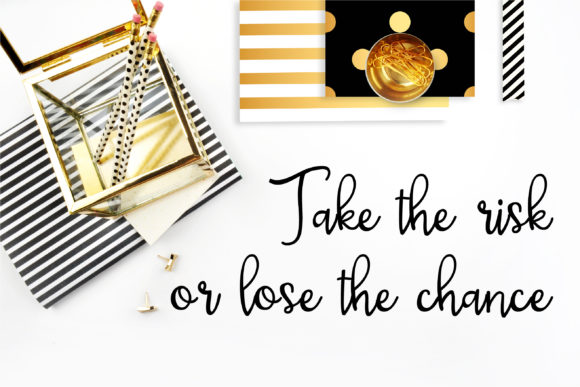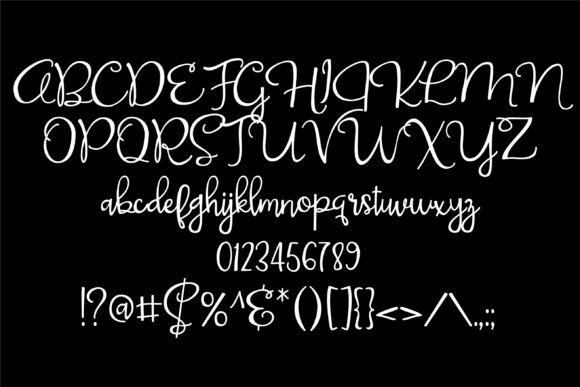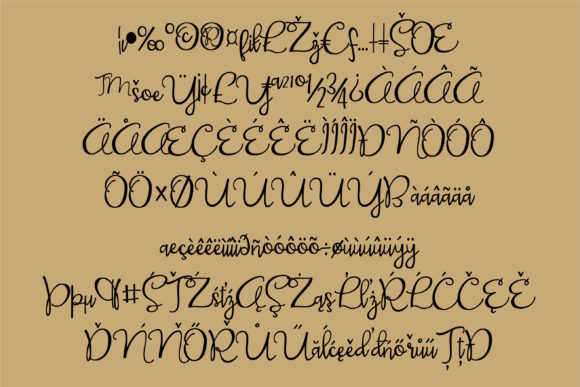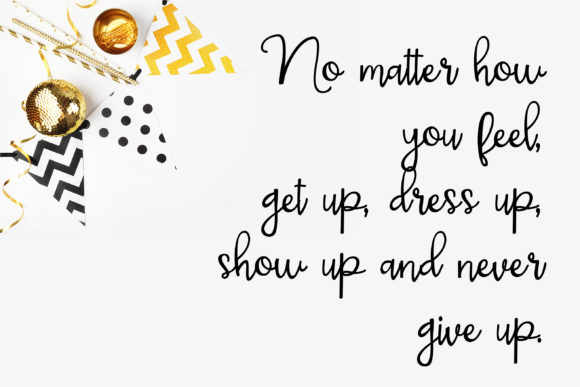
Unleashing Whimsy with the Bellingham Font
Have you ever been brainstorming a creative project and suddenly, the perfect font pops into your head? For many designers, this moment of inspiration is the spark that sets their imagination ablaze. For those who have experienced this euphoric moment, you’ll understand why discovering the Bellingham Font is a revelation. This pretty hand-written script is more than just a font – it’s a key to unlocking the essence of your brand’s personality.
Bellingham Font is a highly legible, hand-written script with large loops and a very upright casual-ness that makes it perfect for capturing the relaxed, friendly vibe of your brand. Whether you’re designing a logo, a brochure, or a website, Bellingham Font is an excellent choice for adding a touch of whimsy and sophistication to your design. For designers, it’s a valuable tool that can elevate their work and make it stand out in a crowded market.
- Unique Characteristics: This font features a unique blend of modern and vintage elements, with subtle flair and elegance, making it perfect for creative and design-intensive projects.
Bellingham Font Review
Overall, I have mixed feelings about the Bellingham font. While it has some redeeming qualities, there are also some notable limitations.
- Unique Design: The Bellingham font boasts a unique design that sets it apart from other fonts. Its irregular shape and letterform make it visually interesting and attention-grabbing.
- High Legibility: Despite its unusual design, the font is surprisingly legible, making it a great choice for body text or headings.
Limited by ⚠️
- Limited Character Set: The Bellingham font has a limited character set, which may not be suitable for languages that require a wider range of characters.
- Not Ideal for Small Text: Due to its irregular shape, the font can become difficult to read when used in small text sizes.
The Bellingham font is a great choice for designers looking to add some visual interest to their work, but it may not be the best choice for projects that require a high level of legibility or a wide range of characters. With some careful consideration of its limitations, the font can be a valuable addition to a designer’s toolkit.
Getting the Most Out of Bellingham Font
Use Bellingham font for creative and inspirational projects, such as quotes, posters, and social media graphics.
Combine Bellingham with other fonts to create a unique and visually appealing design.
Experiment with different font sizes and colors to achieve the desired effect.
Use Bellingham font for:
• Inspirational quotes and sayings
• Creative posters and flyers
• Social media graphics and ads
• Book covers and title pages